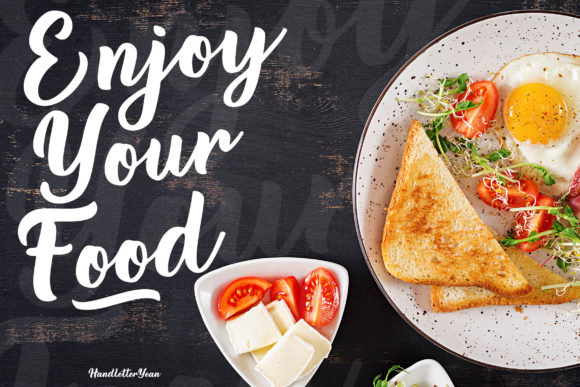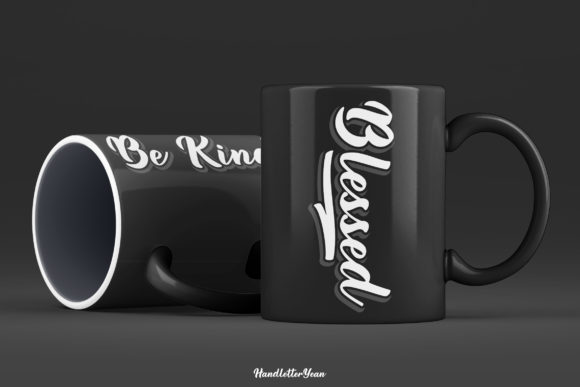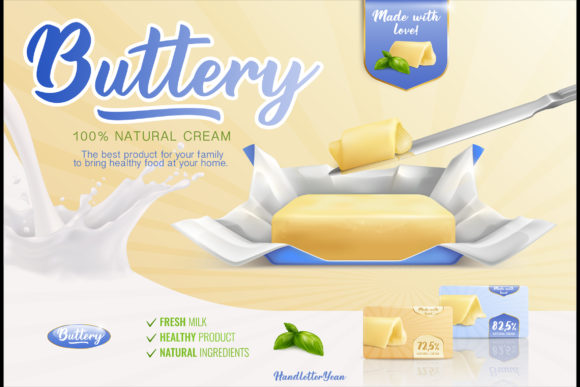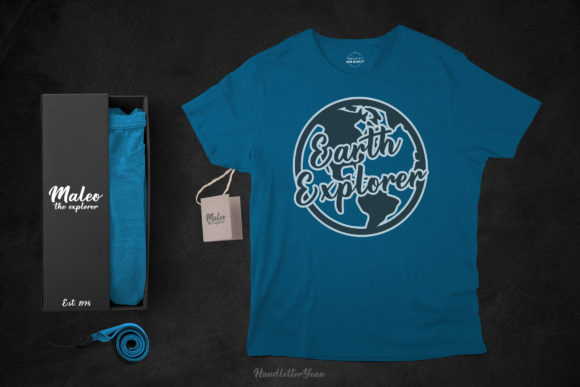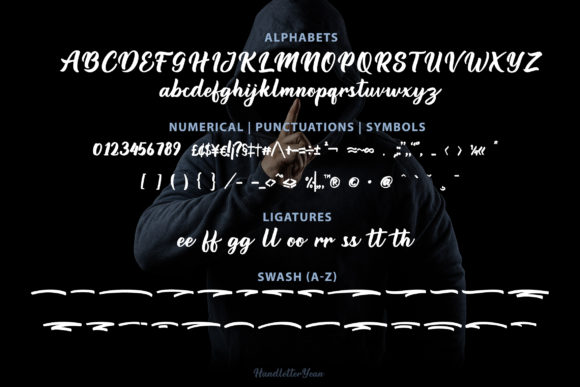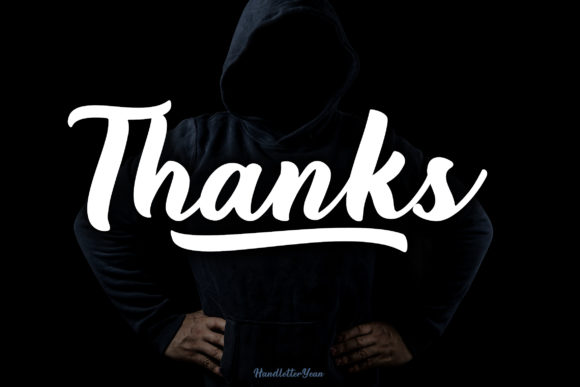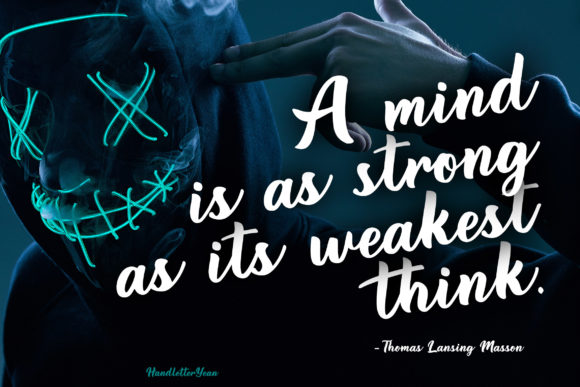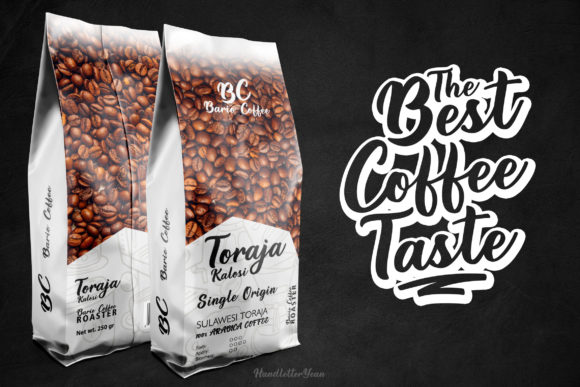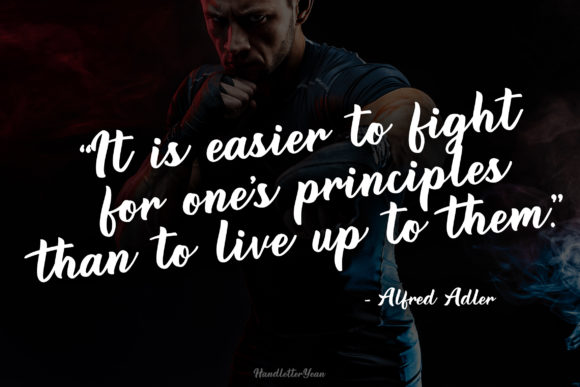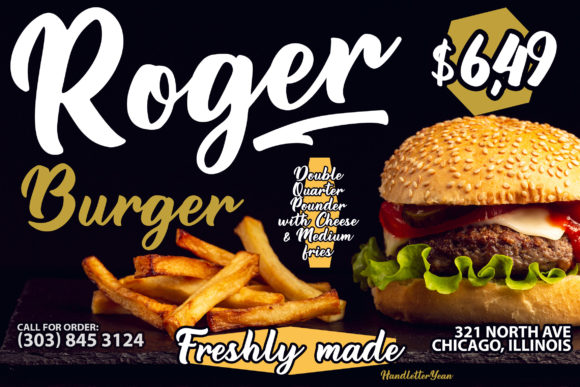
Darion Font
About Darion Font
Darion is a modern bold script font with a natural handwriting touch. This font will look outstanding in any context, whether it’s being used on busy backgrounds or as a standalone headline!